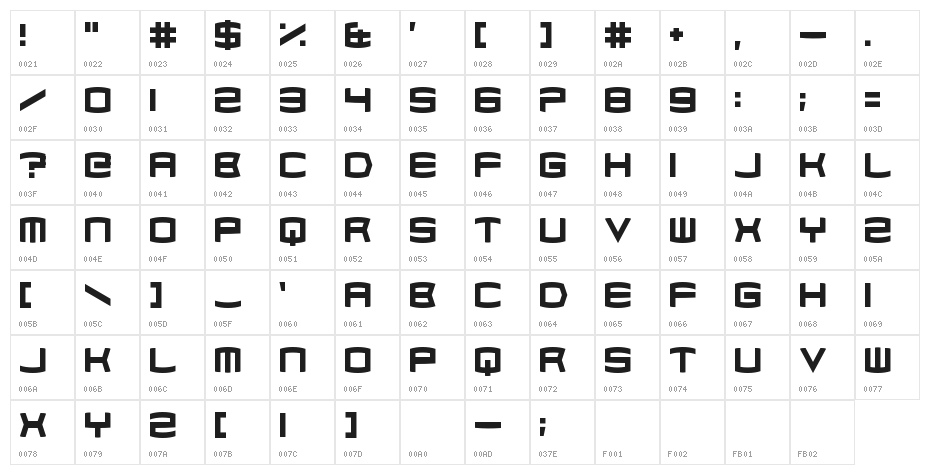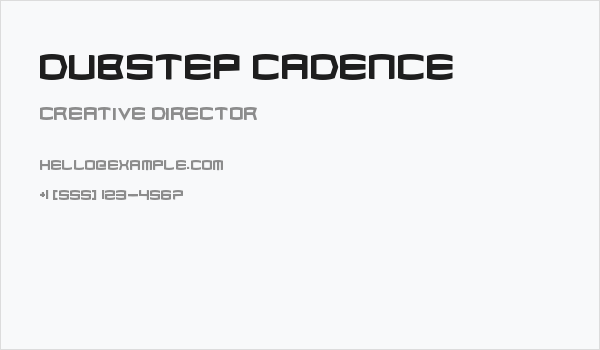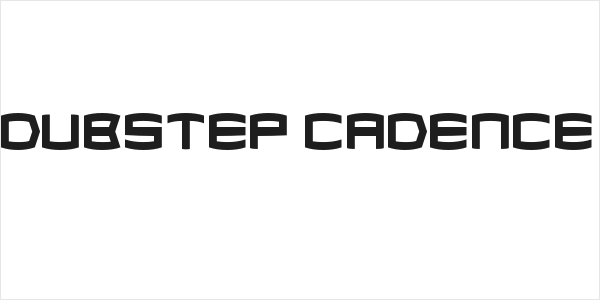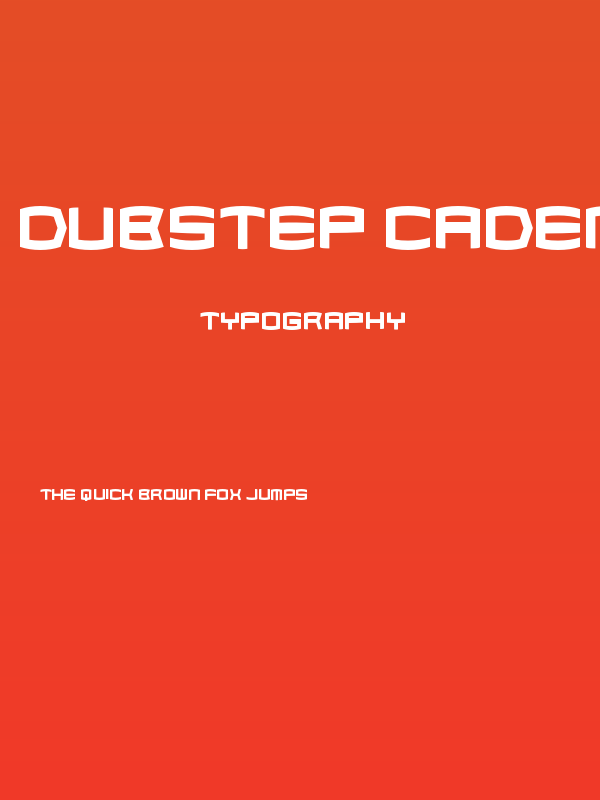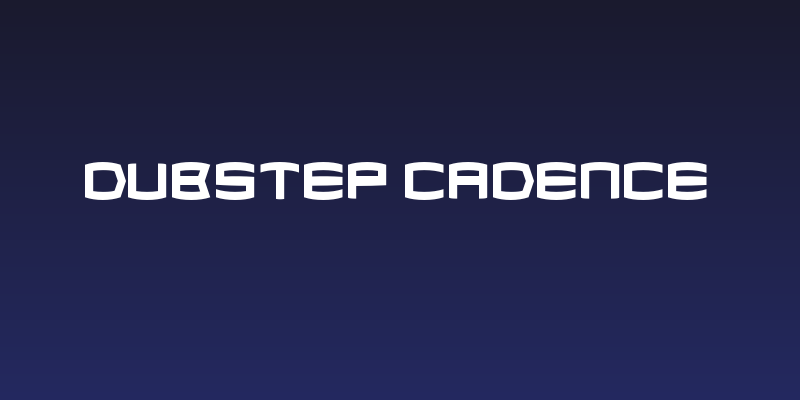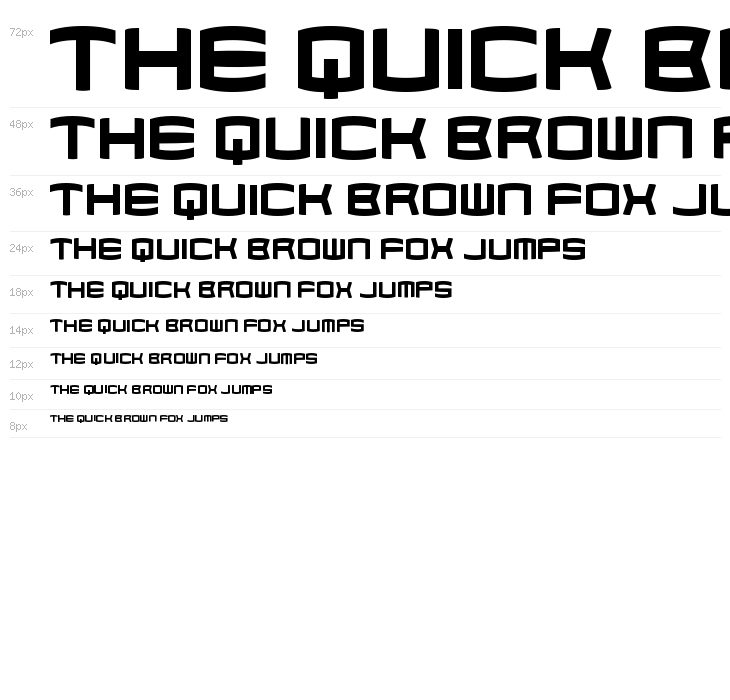
Dubstep Cadence Font
Dubstep Cadence Description
This font features a bold, futuristic design with a strong geometric influence. The characters are wide and have a distinct, angular style, giving them a modern and edgy appearance. The uppercase letters are particularly striking, with a uniform height and consistent stroke width that enhances readability. The lowercase letters maintain the same boldness, ensuring a cohesive look across different text cases. Numbers and special characters are designed to match the overall aesthetic, making the font versatile for various applications. The unique style of this font makes it ideal for projects that require a modern and impactful visual presence.
Proposed ProjectsIdeal for technology branding, music album covers, video game titles, and modern advertising.